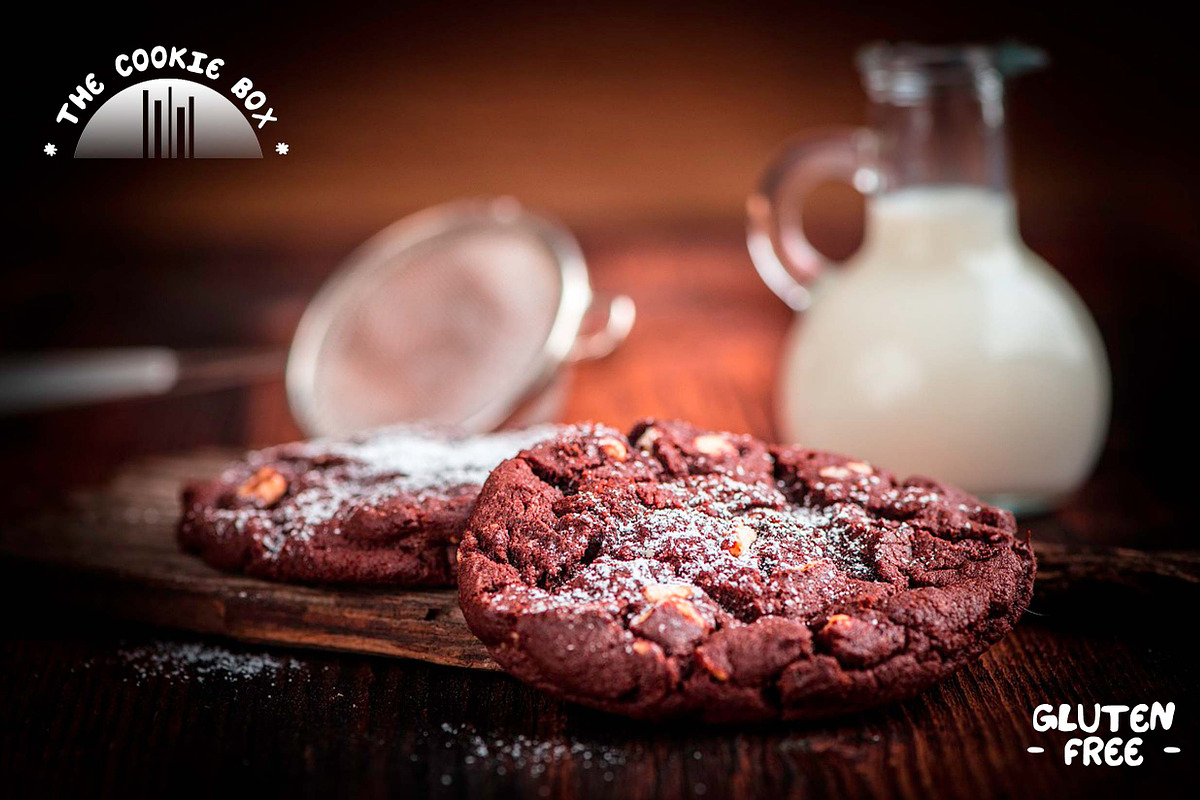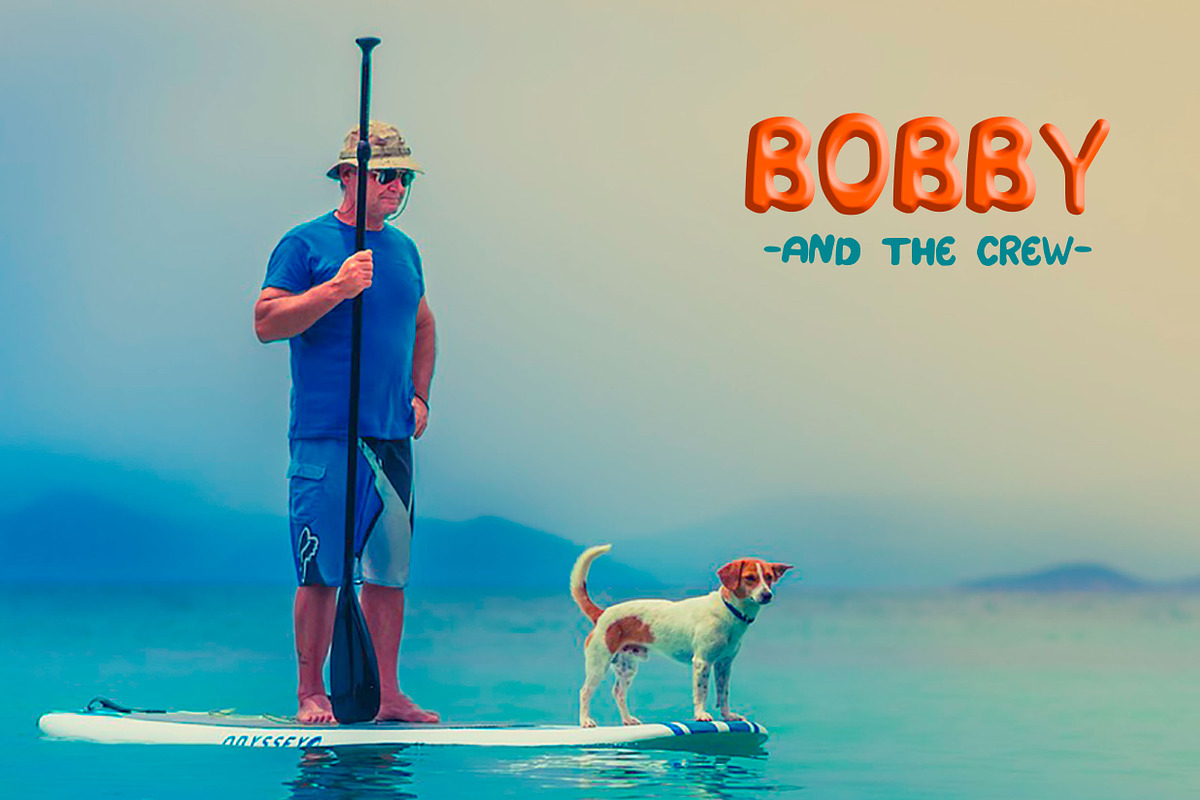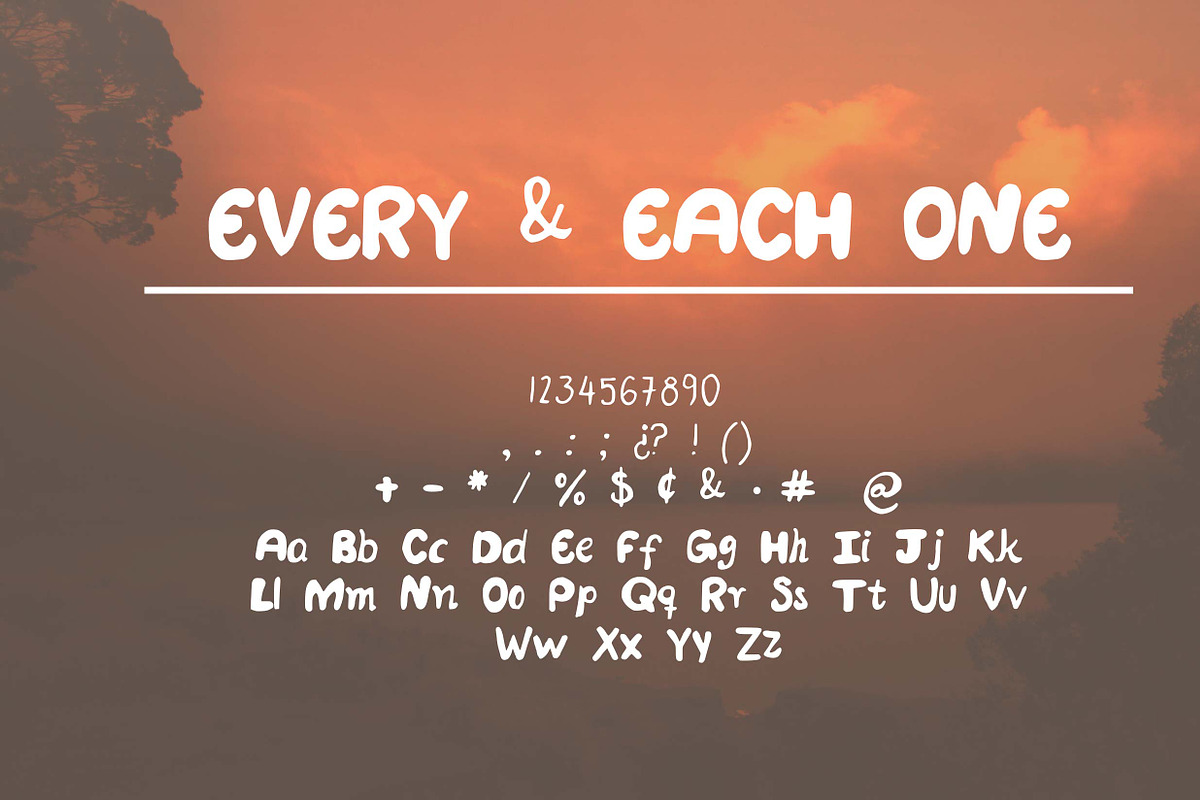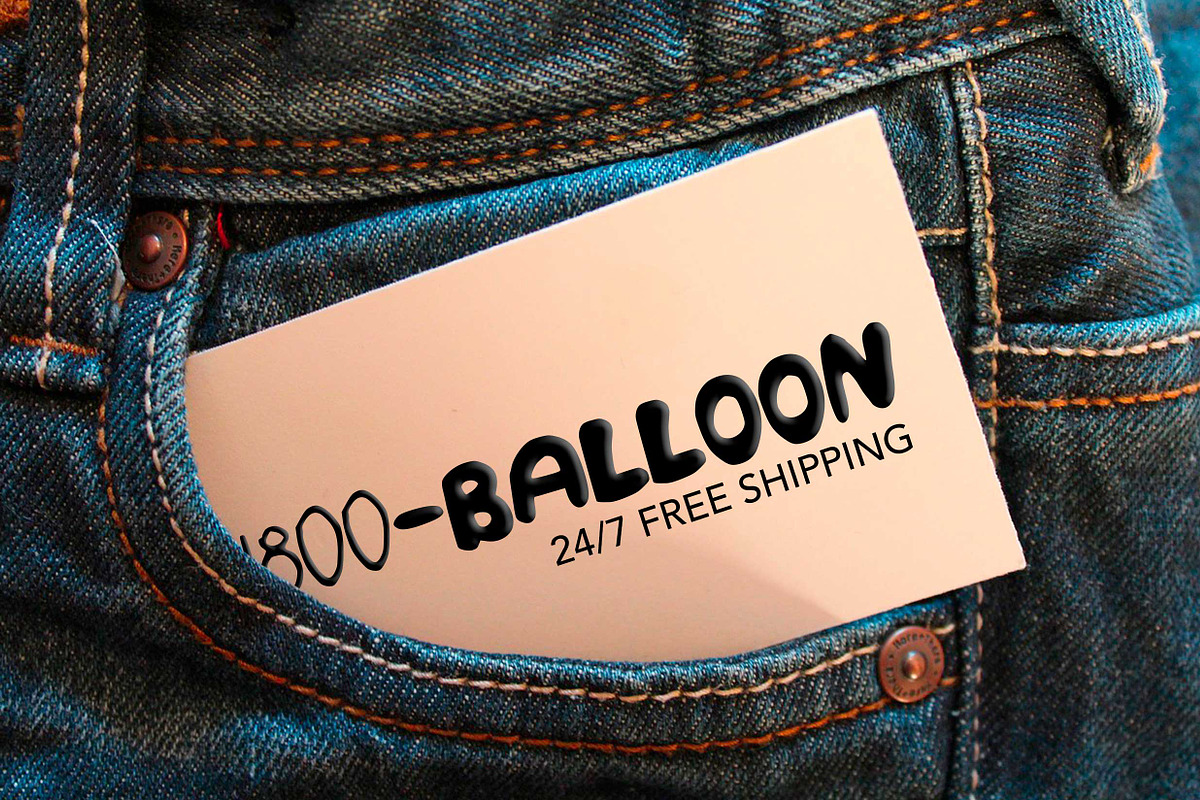
Ashland Handmade Font
Ashland Handmade Font by Gabriela Cárdenas is a font selected for branding, posters, packaging, typography.
- 95 characters to be used as you wish!
Why Ashland Handmade Font is worth a look
Ashland Handmade Font by Gabriela Cárdenas fits naturally into Branding, posters, packaging, typography.